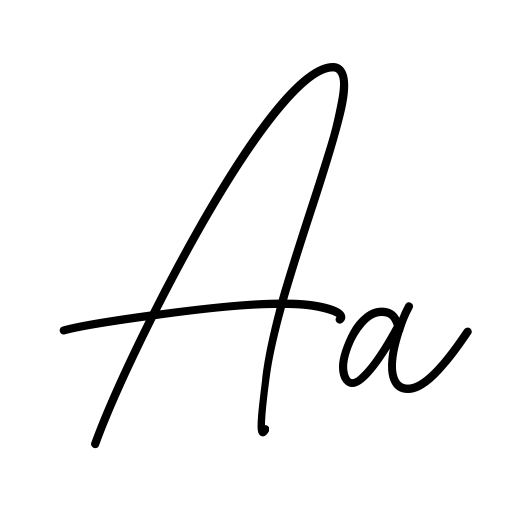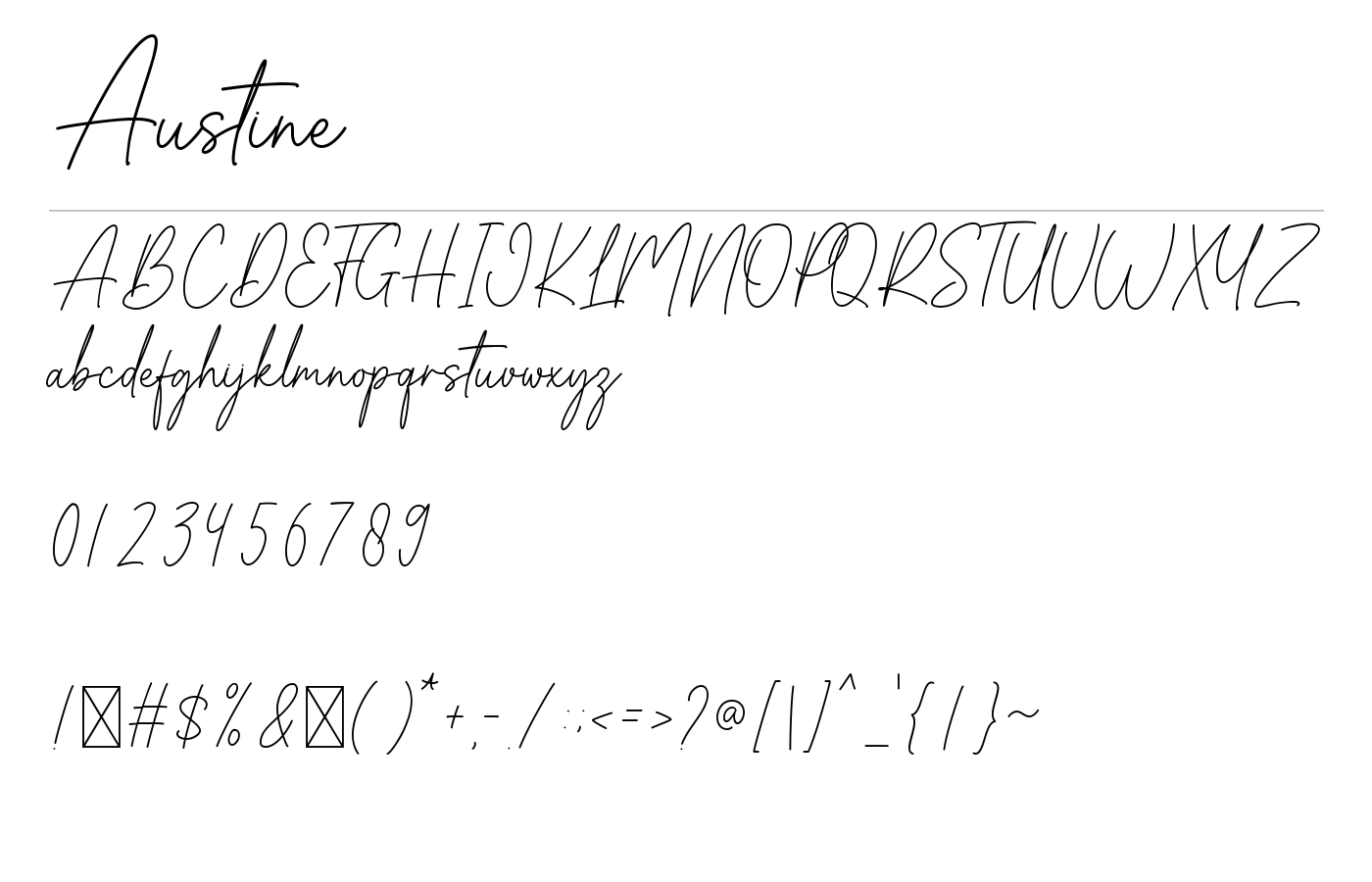
Austine is a delicate, handwritten script font that features slender, elegant strokes with a tall x-height and a graceful flow. Its light weight and airy spacing give it a refined, modern feel, making it ideal for stylish branding, invitations, and creative projects that seek a personal, sophisticated touch. This font works beautifully in contexts where a gentle, approachable elegance is desired, such as fashion, beauty, and lifestyle designs.
Austine Font